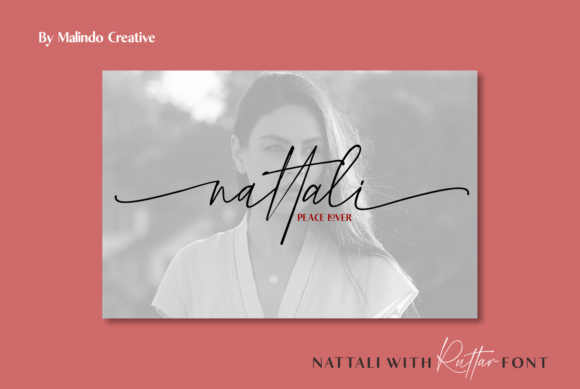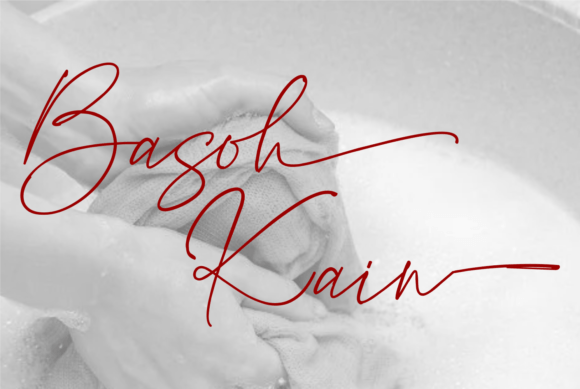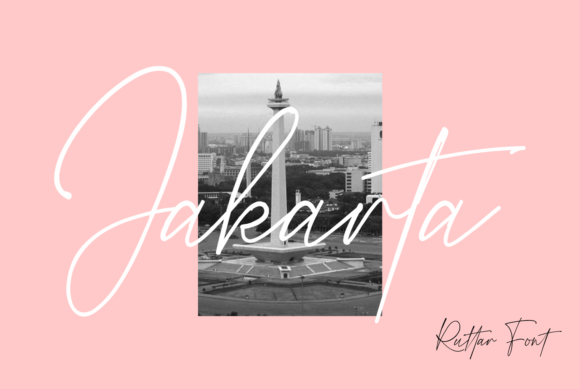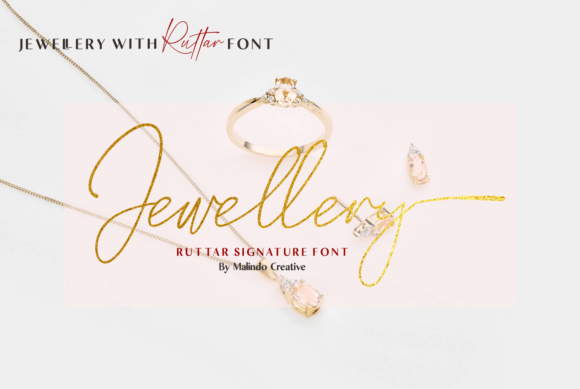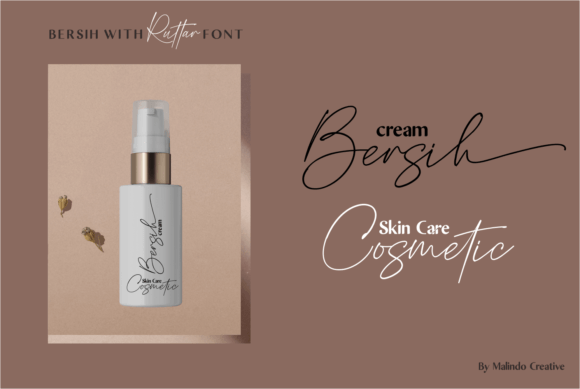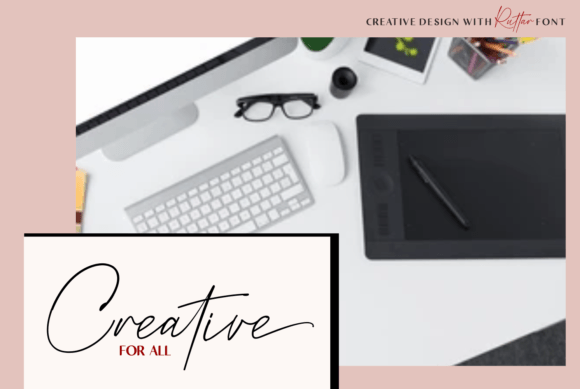
Introduction to Ruttar Signature Font
Imagine you’re working on a creative project, pouring your heart and soul into it, and just as you’re about to hit publish, you realize that the font is holding you back. It’s in a dull, generic style that fails to capture the essence of your design. This is where the Ruttar Signature Font comes in – a game-changer for designers looking to elevate their work.
| 👤 Author | Malindo Creative |
This dazzling script font is a high-quality design resource that will take your creations to the next level. With its intricate details and elegant feel, it’s perfect for a wide range of projects, from invitations and posters to branding materials and digital designs. And the best part? You can download it for free, making it an accessible and valuable addition to your font library.
Key Features of Ruttar Signature Font
- High-quality design resource ideal for creative projects, offering a unique and stylish touch.
- Available in a single size, making it easy to scale and customize for various design needs.
- Designed with a high resolution (300 DPI) for crisp and clear display, even in large formats.
- Unique, handcrafted design that sets it apart from other fonts, making it a standout choice for creative projects.
Honest Review: Ruttar Signature Font
As a designer, I’m always on the lookout for high-quality design resources to elevate my creative projects. Recently, I had the chance to try out the Ruttar Signature Font, and I must say, it’s a great addition to my toolkit.
- Clean and modern design: The Ruttar Signature Font has a sleek, contemporary feel that’s perfect for modern branding and design projects.
- High-quality glyphs: The font includes a wide range of glyphs, including accented characters and special symbols, making it a great choice for designers who need a versatile font.
- Transparent background: The font’s transparent background makes it easy to use on both light and dark backgrounds, giving designers more flexibility when designing.
- Not ideal for small text: The font’s design makes it best suited for larger text sizes, which can be a limitation for designers who need to use the font for small text.
- Limited language support: While the font includes a range of glyphs, it may not be suitable for designers who need to work with languages that require more complex character sets.
Overall, I’m impressed with the Ruttar Signature Font’s clean design and versatility. It’s a great choice for designers who want a high-quality font for their creative projects, and it’s available as a free download, making it an excellent design resource to have in your toolkit.
The Ruttar Signature Font is a versatile design resource that can be used in a variety of creative projects, such as:
- Personal branding materials, such as business cards and letterheads
- Marketing materials, such as brochures and flyers
- Design projects, such as logos and infographics